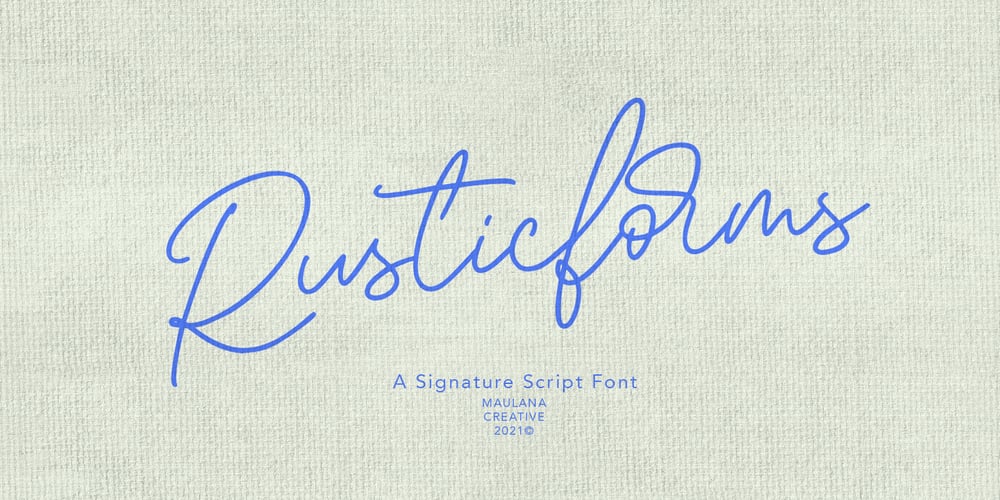
Rusticform
Rusticform font
Rusticform Font Family was designed by Gilang Maulana and published by Maulana Creative. Rusticform contains 1 styles and family package options. Rusticform is a curvy signature script font, with light mono-line stroke, slanted and fun character. It has Opentype features ligatures of character and alternate lowercase option, To give you an extra creative work. Rusticform signature font support multilingual more than 100+ language. This font is good for logo design, Social media, Movie Titles, Books Titles, a short text even a long text letter and good for your secondary text font with sans or serif. Make a stunning work with Rusticform font.Cheers, MaulanaCreative